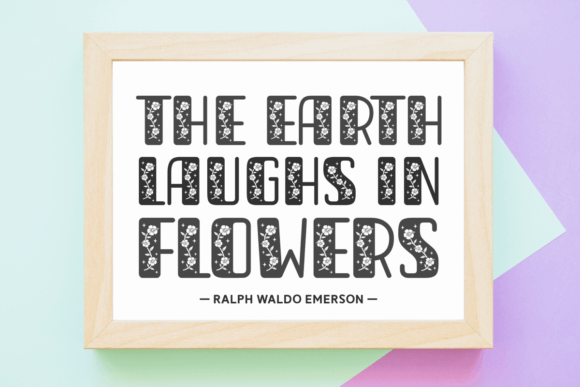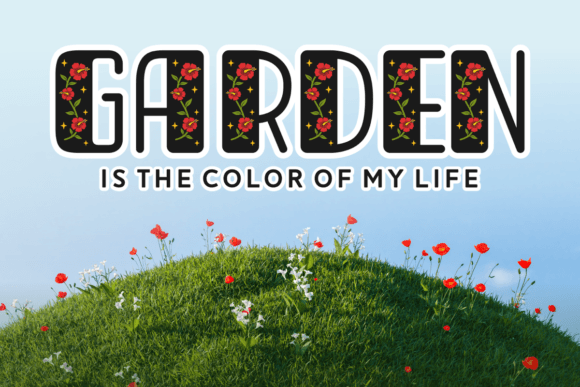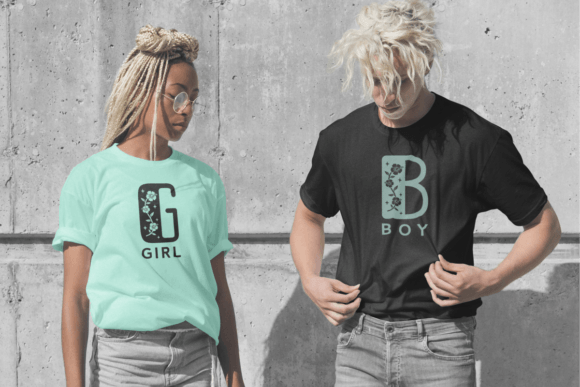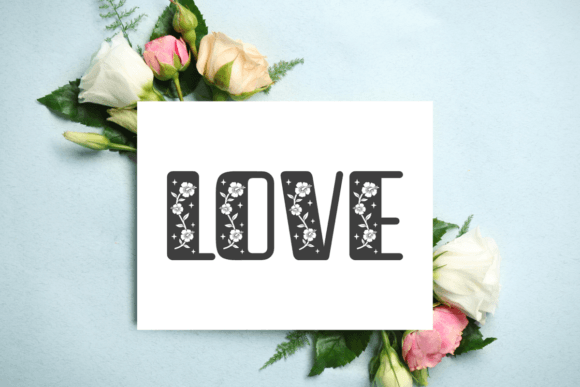
Introduction to Bumela Font
Bumela: a bold cheerful and cute font ready to accompany your design projects.
Perfect for covers, merchandise, posters, creative posts, birthday cards and more .
Key Features of Bumela Font
Why Choose Bumela Font?